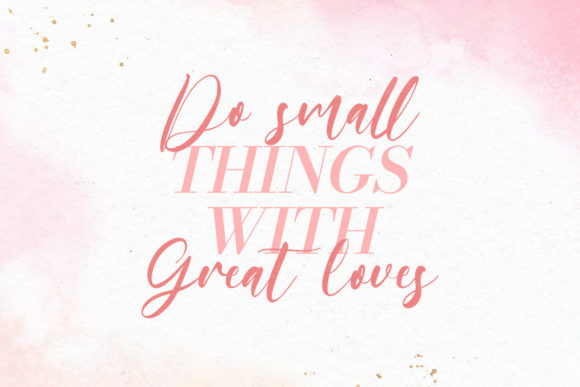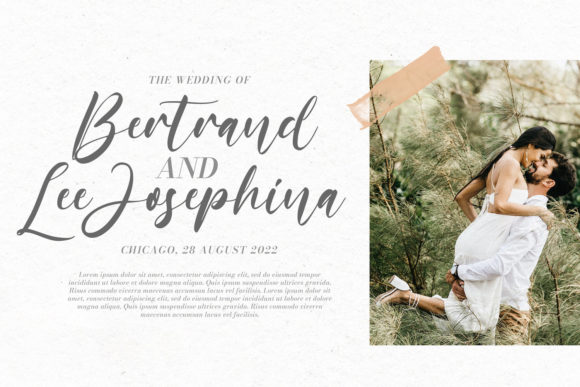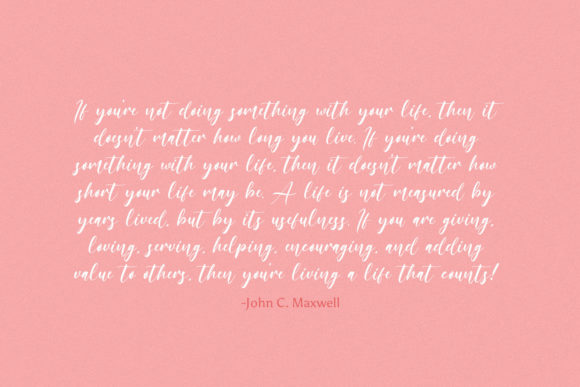
Introduction to Fattemah Font
Fattemah is a relaxed, well-balanced and chic handwritten font.
It has lovely characters and as a result, it matches a wide pool of designs Add it to your most creative ideas and notice how it makes them come alive.
Key Features of Fattemah Font
Why Choose Fattemah Font?
Fattemah Font offers exceptional quality and versatility, making it a valuable addition to your design toolkit. Whether you’re creating for personal projects or commercial use, Fattemah Font delivers professional results.